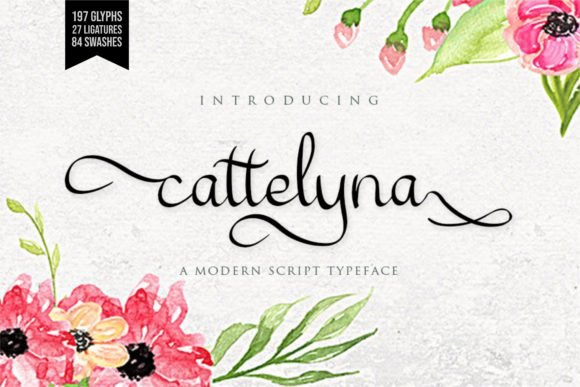
As a designer, have you ever stumbled upon the perfect font that elevates your entire project? For me, it was that moment when I discovered the Cattelyna Font. I was working on a branding campaign for a luxury fashion brand, and I knew I needed a font that exuded elegance and sophistication. That’s when I stumbled upon Cattelyna, a modern beautiful typeface that perfectly captured the essence of luxury and femininity.
The Cattelyna Font is a versatile and modern script that’s perfect for a variety of designs, from greeting cards to branding materials, quotes, and posters. Its fresh and modern look makes it a valuable asset for designers who want to create stunning and eye-catching designs. Whether you’re working on a personal project or a client’s brief, the Cattelyna Font is sure to impress.
Cattelyna Font Key Features
- Unique Characteristics: Elegant, cursive script with subtle flair and flair, perfect for creating a sophisticated and stylish look
- Font Style: Script, Display
Cattelyna Font Review
Cattelyna is a beautiful, elegant script font that’s perfect for adding a touch of sophistication to your designs. Here are some things that work well: ✨
- Unique character shapes: Each letter in Cattelyna has a unique shape that adds to its charm.
- Legibility: Despite its script nature, Cattelyna is surprisingly legible, making it suitable for body text.
- Flexibility: Cattelyna works well in a variety of contexts, from headings to titles, and even as a standalone display font.
- Limited language support: Cattelyna may not support languages that require more complex character sets.
- Slightly ornate: While the font’s elegance is a major draw, it can also be overwhelming in certain contexts.
- Not ideal for small sizes: At smaller font sizes, Cattelyna’s lines and curves can become fuzzy and difficult to read.
Overall, I think Cattelyna is a great addition to any designer’s toolkit. With a little care and attention to context, it can add a touch of class and sophistication to even the most mundane designs. Just be mindful of its limitations, and you’ll be golden.
Use Cattelyna Font for:
– Headings and titles to add a touch of elegance.
– Body text to create a clean and modern look.
– Logos and branding materials to establish a consistent visual identity.
For best results, use Cattelyna Font in combination with a clean and minimalist design aesthetic.
Alternatives to Cattelyna Font
Great Vibes is a modern, elegant script font that is ideal for creating a sense of sophistication and refinement. It’s perfect for use in branding, packaging, and advertising materials where a touch of class is required.
Compared to Cattelyna Font, Great Vibes has a more refined and polished look, making it suitable for formal applications. While Cattelyna Font has a more casual and playful feel, Great Vibes is better suited for high-end designs.
Alex Brush is a handwritten font that is perfect for creating a personal and intimate feel. It’s ideal for use in editorial design, social media, and marketing materials where a touch of personality is required.
Compared to Cattelyna Font, Alex Brush has a more rustic and handwritten feel, making it suitable for designs that require a sense of authenticity and personality. While Cattelyna Font is more polished and refined, Alex Brush is better suited for designs that require a more casual and approachable tone.
Carolyna Pro is a modern, elegant script font that is perfect for creating a sense of luxury and sophistication. It’s ideal for use in branding, packaging, and advertising materials where a touch of glamour is required.
Compared to Cattelyna Font, Carolyna Pro has a more refined and polished look, making it suitable for high-end designs. While Cattelyna Font has a more casual and playful feel, Carolyna Pro is better suited for formal and sophisticated applications.
Dancing Script is a playful and elegant script font that is perfect for creating a